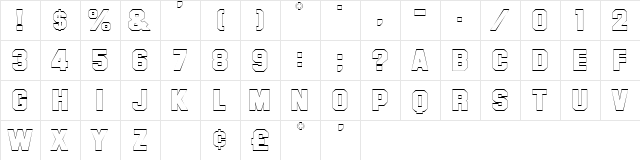
Letter Sweater Sans-Open SSi Normal Font Preview
Letter Sweater Sans-Open SSi Normal
Design Context for Letter Sweater Sans-Open SSi Typeface
Letter Sweater Sans-Open SSi offers clean, dependable letterforms without strong stylistic allegiance, making it a practical choice for designers who need flexibility.